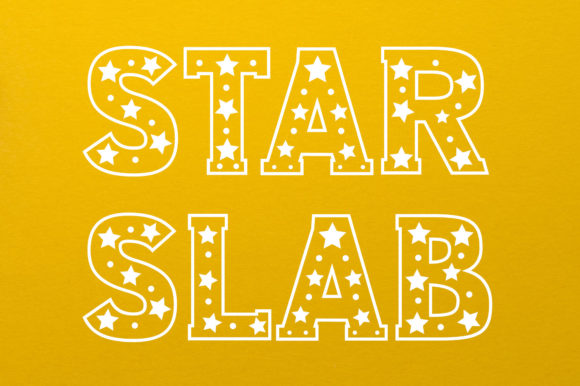
Journey through the cosmos with Star Slab, the decorative font that adds a touch of celestial magic to your designs. Each letter, a constellation of stars, bursts with brilliance, captivating the eyes and igniting the imagination. With its bold, thick lines, Star Slab stands out, commanding attention and leaving a lasting impression. Embark on a creative odyssey, where your designs become canvases painted with stardust.
Let Star Slab be your guiding light, illuminating your words and transforming them into cosmic masterpieces. Its unique, childlike charm makes it the perfect choice for children's themes, adding a playful and enchanting touch to stories, invitations, and school projects. Whether you're a seasoned designer or just starting your creative journey, Star Slab is the font that will make your designs shine brighter than a thousand stars.
Unleash your creativity and let Star Slab take you to new heights. Create eye-catching posters, logos, and social media posts that sparkle with cosmic energy. Add a touch of whimsy to your wedding invitations, greeting cards, and flyers. The possibilities are endless, limited only by your imagination. With Star Slab, your designs will radiate with a celestial glow, leaving a trail of stardust wherever they go.